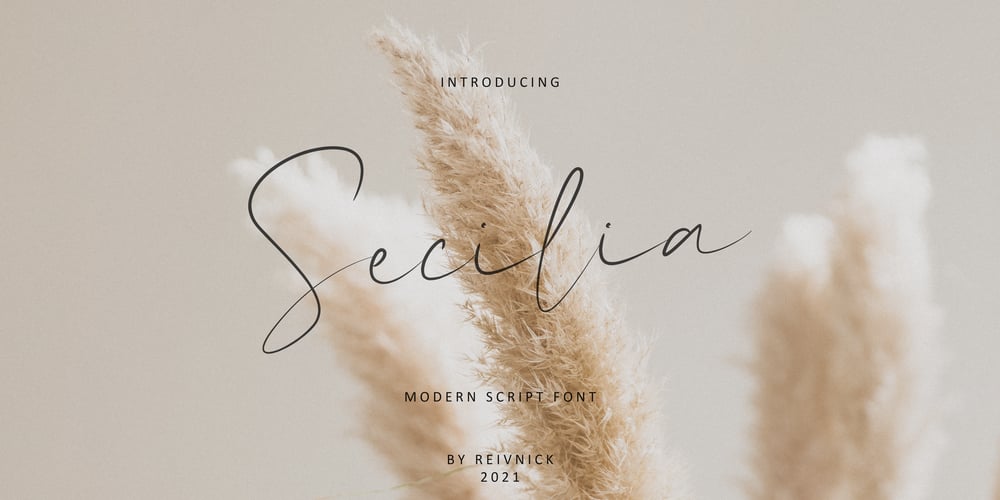
Secilia Font Family was designed by Benediktus Hosni Iryandito and published by ReivNick. Secilia contains 1 styles and family package options. Secsignature series is a elegant and a smooth casual monoline signature stylish script.Yasmin Signature series is perfect for branding projects, logo, wedding designs, social media posts, advertisements, product packaging, product designs, label, photography, watermark, invitation, stationery and any projects that need handwriting taste.